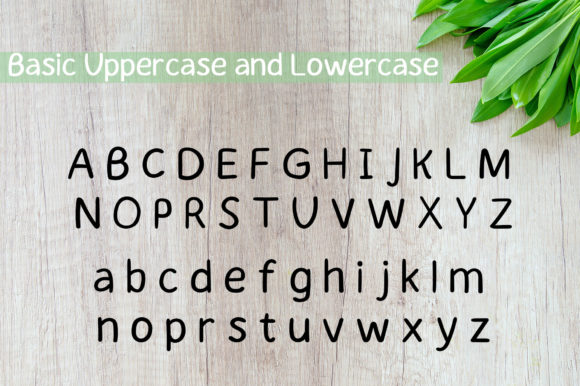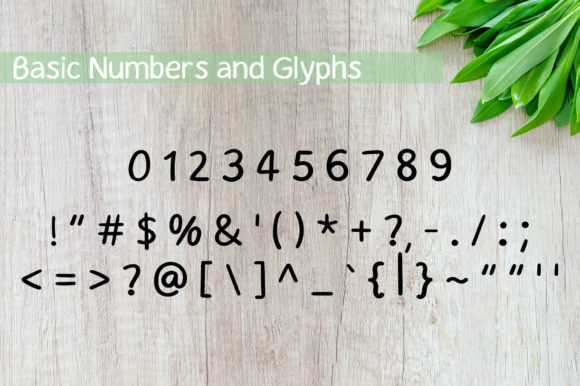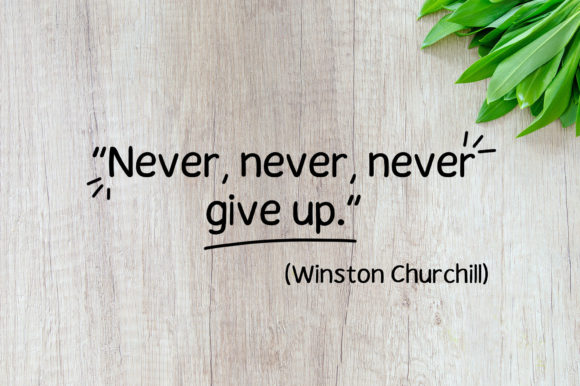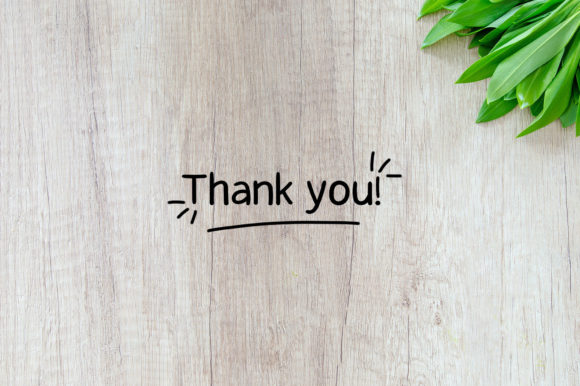
Orderly Font
About Orderly Font
**Orderly Font: Clean and Simple Handwritten Sophistication**
Step into the realm of typography where simplicity meets elegance – introducing *Orderly Font*, a clean and simple handwritten typeface meticulously crafted to be the optimal choice for eye-catching logos, branding, and quotes. Each letter within this font carries a unique and beautiful touch, breathing life into your design projects with a touch of sophistication.
At its essence, *Orderly* encapsulates the beauty found in simplicity. Its clean lines and simple strokes contribute to a visually harmonious experience, offering a font that transcends the boundaries of mere typography. It becomes a statement, an embodiment of sophistication that elevates the visual appeal of your designs.
Every letter within *Orderly* is a canvas of creativity, a unique brushstroke carefully curated to add character and charm. It goes beyond being a mere typeface – it becomes an integral part of your creative expression, creating designs that come alive with a touch of elegance.
Whether you are shaping logos that demand attention, crafting a brand identity, or seeking the perfect typeface for compelling quotes, *Orderly Font* effortlessly adapts. Its versatility makes it a superb choice for a variety of creative applications, ensuring your designs carry an authentic and well-balanced allure.
In the design landscape, where every element tells a story, *Orderly* emerges as a storyteller. Its clean and simple handwritten sophistication narrates tales of timeless elegance and refined simplicity. As you integrate this font into your projects, you’ll find that it doesn’t just adorn your designs – it becomes an essential element, an architect of visual narratives.
In conclusion, *Orderly Font* is more than a typeface; it’s a conduit for your creative expression. It offers a clean and simple canvas on which your ideas can flourish, making your designs come alive with a unique and beautiful touch. Let *Orderly* be the choice that infuses sophistication into your logos, branding, and quotes, turning your creative visions into visually captivating realities.